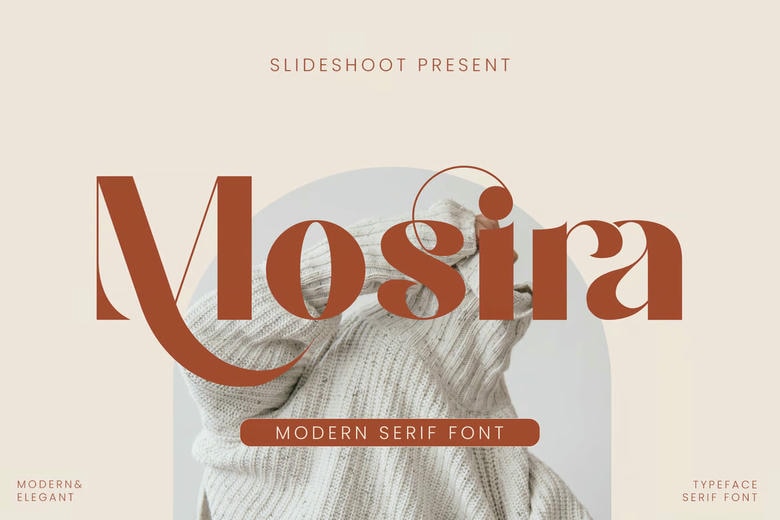
Mosira Font
Mosira is a balanced, fluid, elegant, and stylish serif font. It has a beautiful character. It is perfect for invitation card designs, corporate logos, movie titles, business cards, book titles, brand names, and various other designs. Mosira Serif is a subtle serif font that exudes sophistication and elegance. Its elegant alternations and ligatures make this font the perfect partner for any project.
Mosira Modern Serif Font